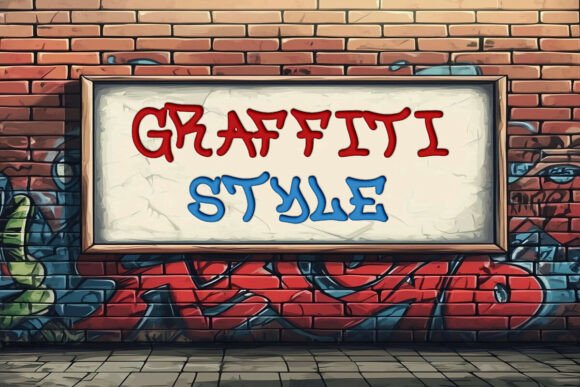
Unleash Your Creativity with the Expressive Graffiti Style Font
Are you a designer, crafter, or DIY enthusiast looking for a font that can add a touch of personality and flair to your projects? Look no further than the Graffiti Style font! This dynamic and expressive font is perfect for creating a wide range of creative projects, from T-shirts and stickers to greeting cards, magazines, and more.
What is Graffiti Style Font?
Graffiti Style font is a type of font that mimics the look and feel of graffiti art. It is characterized by its bold, colorful, and often stylized lettering. This font is designed to add a touch of edginess and creativity to any project, making it perfect for designers and crafters who want to make a statement.
Uses of Graffiti Style Font
The Graffiti Style font is incredibly versatile and can be used for a wide range of projects, including:
- T-shirts and apparel: Create eye-catching and stylish T-shirts, hoodies, and other apparel with the Graffiti Style font.
- Stickers and decals: Add a touch of personality to your stickers and decals with this bold and colorful font.
- Greeting cards and invitations: Create unique and personalized greeting cards and invitations that will stand out from the crowd.
- Magazines and publications: Add a touch of edginess and creativity to your magazine or publication with the Graffiti Style font.
- SVG files: Use the Graffiti Style font to create custom SVG files for cutting machines, such as Cricut.
- Branding projects: Make a statement with your branding projects, such as logos, business cards, and brochures.
- Posters and flyers: Create eye-catching posters and flyers that will grab attention.
- Social media content: Add a touch of personality to your social media content, such as Instagram posts and Facebook graphics.
- Cricut projects: Use the Graffiti Style font to create unique and personalized projects with your Cricut cutting machine.
Why Choose Graffiti Style Font?
There are many reasons why you should choose the Graffiti Style font for your next project. Here are just a few:
- Unique and expressive: The Graffiti Style font is unlike any other font. Its bold and colorful lettering will add a touch of personality to any project.
- Versatile: This font can be used for a wide range of projects, from T-shirts and stickers to magazines and SVG files.
- High-quality: This font is high-quality and will look great in any project.
Tips for Using Graffiti Style Font
Here are a few tips for using the Graffiti Style font:
- Experiment with colors: The Graffiti Style font looks great in bold and bright colors. Experiment with different colors to find the perfect look for your project.
- Mix and match: Don’t be afraid to mix and match the Graffiti Style font with other fonts and graphics to create a unique look.
- Keep it simple: While the Graffiti Style font is bold and colorful, it’s best to keep your design simple and easy to read.
The Graffiti Style font is a versatile and expressive font that is perfect for designers, crafters, and DIY enthusiasts. With its bold and colorful lettering, this font can add a touch of personality and flair to any project. Whether you’re creating T-shirts, stickers, greeting cards, or SVG files, the Graffiti Style font is a great choice. So why wait? Unleash your creativity and experience the boundless possibilities with the Graffiti Style font!